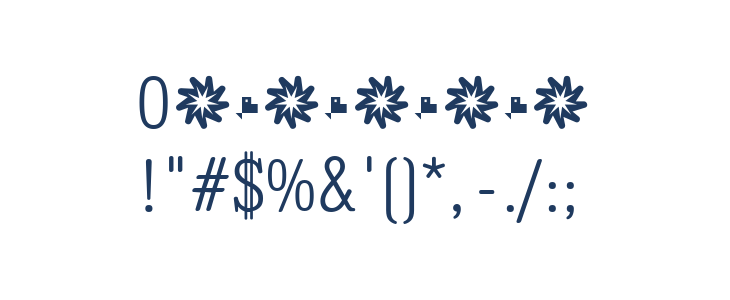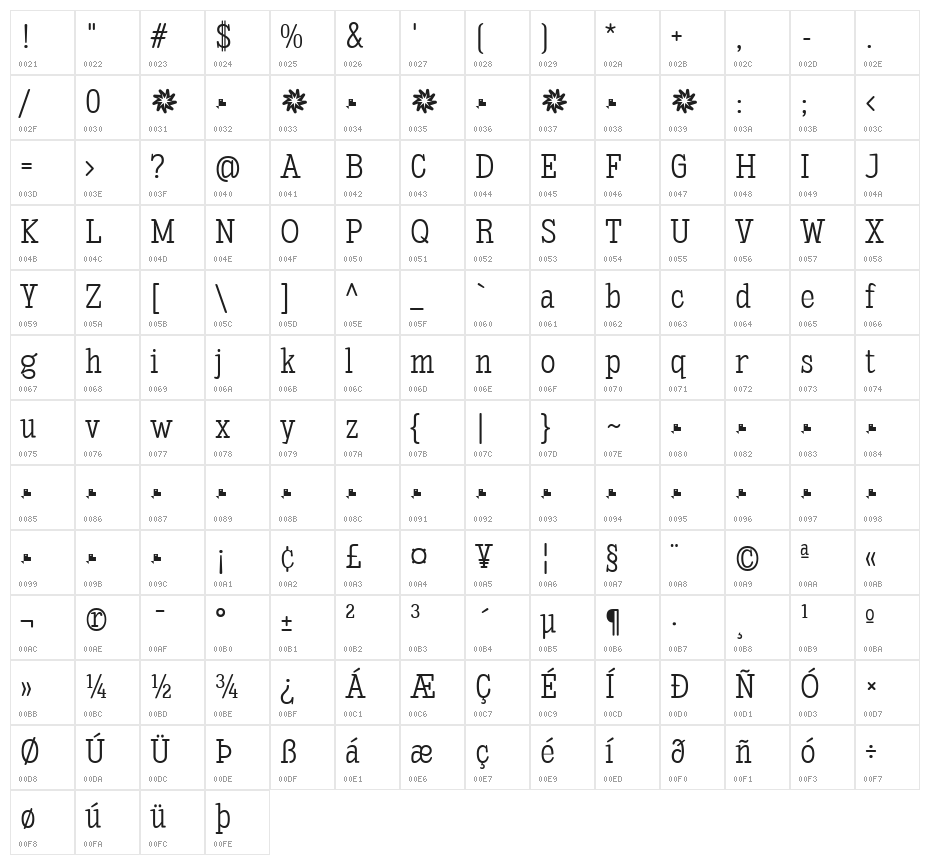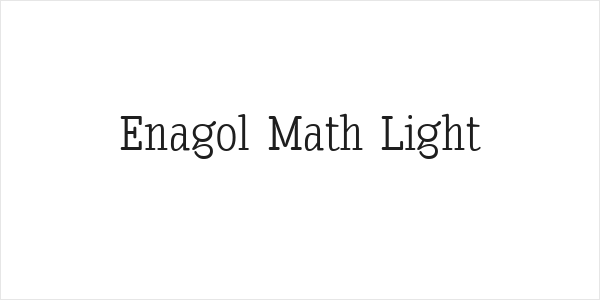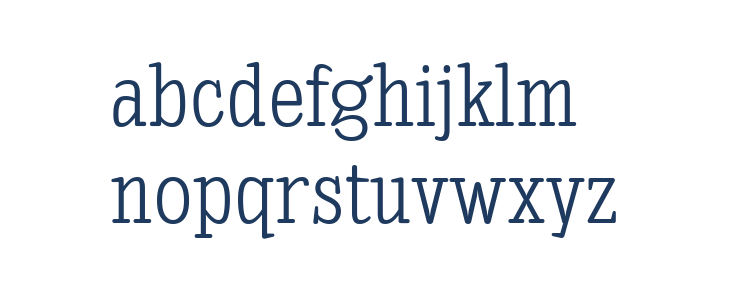
Enagol Math Light Font
Enagol Math Light Description
This font features a classic serif style with a light weight, offering a clean and elegant appearance. The serifs are pronounced yet refined, providing a traditional look that is both readable and sophisticated. The uppercase letters are tall and stately, while the lowercase letters maintain a balanced proportion. The numerals are clear and consistent with the overall style, ensuring legibility. Special characters are well-integrated, maintaining the font's cohesive aesthetic. The overall design is suitable for formal and professional applications, making it versatile for various uses.
| Overall Style | Classic |
| Use Case | Headlines, Body text, Logos |
| Proposed Projects | Ideal for editorial design, book publishing, formal invitations, and corporate branding. |